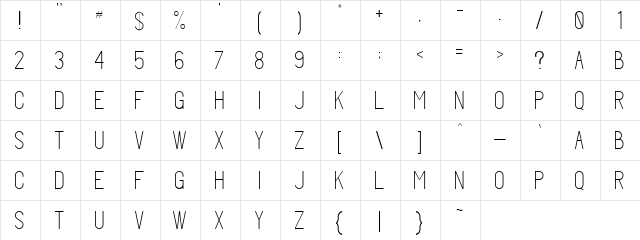
Oswaldesque Light
Design Context for Oswaldesque Typeface
Oswaldesque offers clean, dependable letterforms without strong stylistic allegiance, making it a practical choice for designers who need flexibility. The delicate stroke weight brings airiness and refinement to layouts.